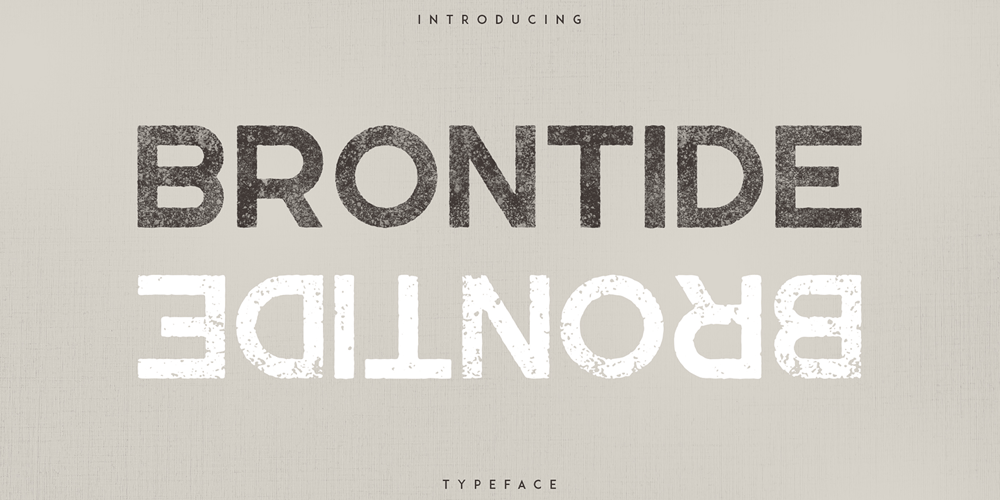
Brontide VP
Brontide VP font
Brontide VP Font Family was designed by Vladimir Fedotov, Plamen Petrov and published by VP Creative Shop. Brontide VP contains 2 styles and family package options. Introducing Brontide VP TypefaceBrontide is perfect for branding projects, home-ware designs, product packaging, magazine headers – or simply as a stylish text overlay to any background image.–Uppercase